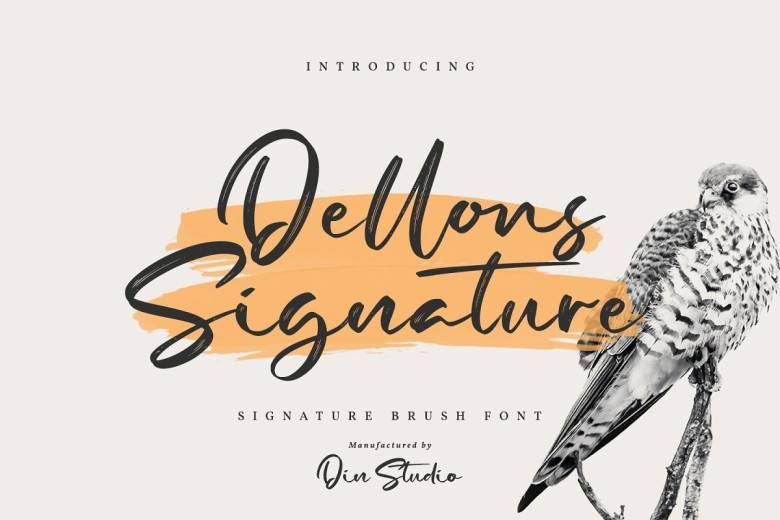
Dellons Signature Elegant Brush Font
Dellons Signature is a elegant brush font. Combined with brush textured handwritten will make your design project more special. Made for any professional project branding. It is the best for logos, branding and quotes. Every letter has a unique and beautiful touch.
Dellons Signature Font also Suitable for Logo, greeting cards, quotes, posters, branding, name card, stationary, design title, blog header, art quote, typography, art, modern envelope lettering or book design, happening style like hand-drawn design or watercolor design theme, craft design, any DIY project, book title, or any purpose to make your art/design project look pretty and trendy.